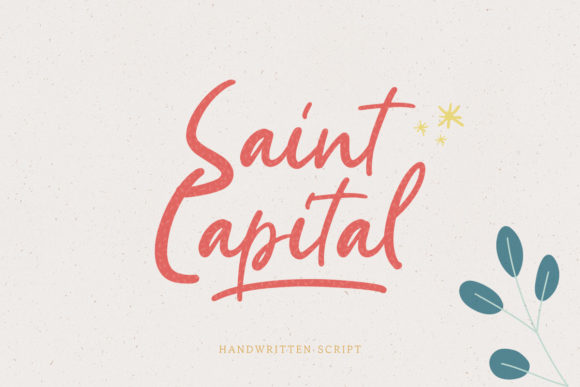
Step into the realm of enchantment with Saint Capital, the captivating script font that breathes life into your digital creations. Crafted with love by the ingenious minds at Rillatype, this font family is a symphony of elegance and playfulness, elegantly penning words that dance gracefully atop the baseline.
Ignite your creative spark and infuse your projects with a touch of whimsy and charm. Saint Capital's playful personality lends itself beautifully to a myriad of design endeavors, transforming ordinary text into extraordinary works of art. Let your imagination soar as you witness the transformation of your designs, elevated to new heights of visual appeal.
Effortlessly create breathtaking logos and branding elements that radiate a sense of enchantment. Craft social media posts that captivate your audience, leaving an unforgettable impression with every scroll. Unleash your creativity in designing eye-catching invitations, cards, and other printed materials that evoke a sense of wonder.
Saint Capital's versatility knows no bounds. Its meticulously crafted characters effortlessly adapt to a wide spectrum of design styles, from the classic and timeless to the modern and edgy. Its delicate curves and flowing strokes harmonize seamlessly with both digital and print media, ensuring your designs shine brightly in any context.
Embrace the magic of Saint Capital and embark on a creative journey where your imagination holds the key. Its enchanting allure will cast a spell on your audience, leaving them mesmerized by the beauty and elegance of your creations. Elevate your designs, captivate your audience, and leave an indelible mark on the world with Saint Capital.